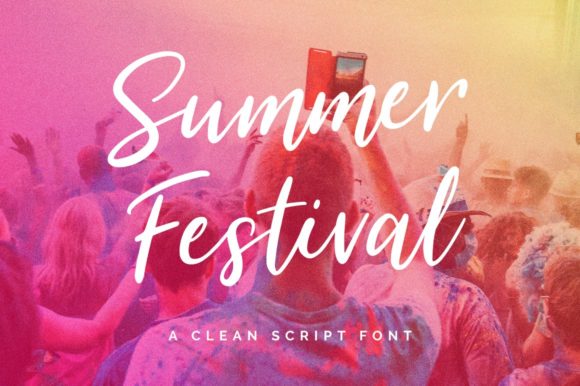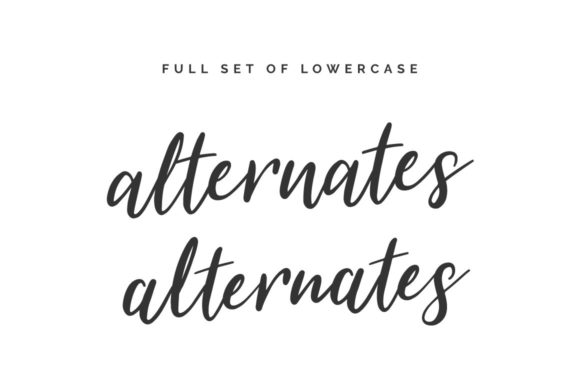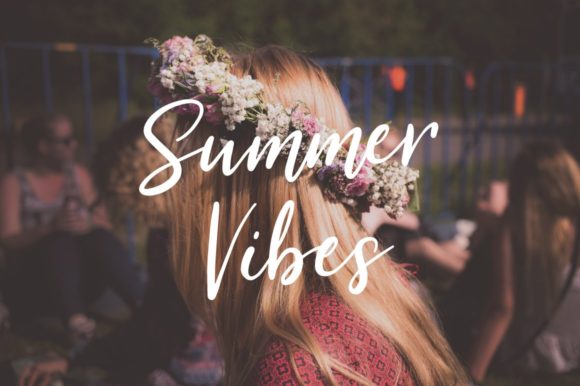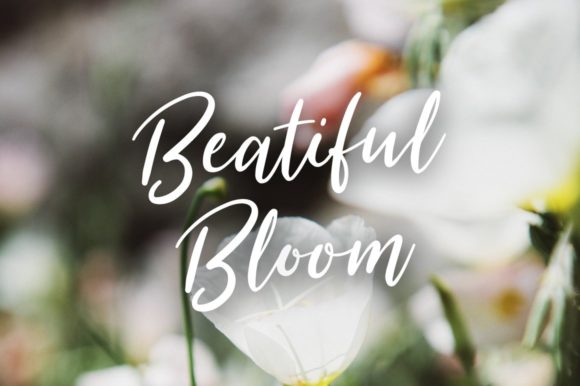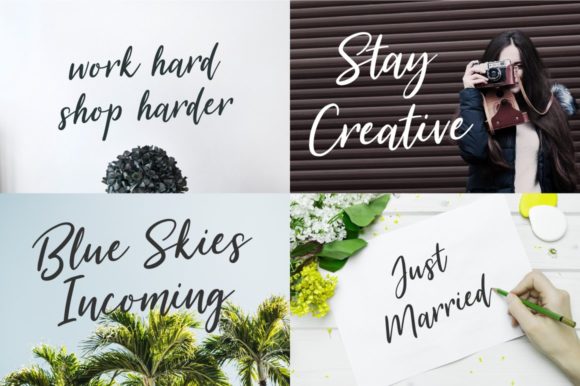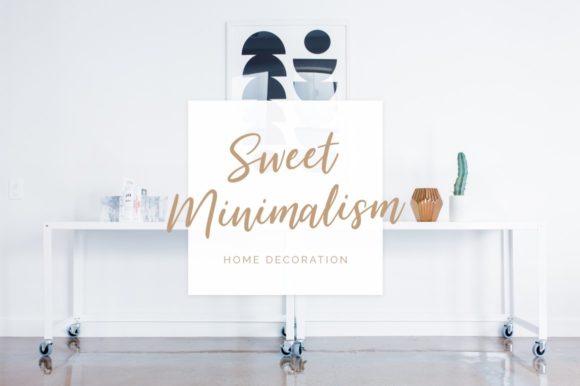
Summer Festival Font
About Summer Festival Font
Summer Festival is an authentically designed script that will easily turn any design project into a true standout!